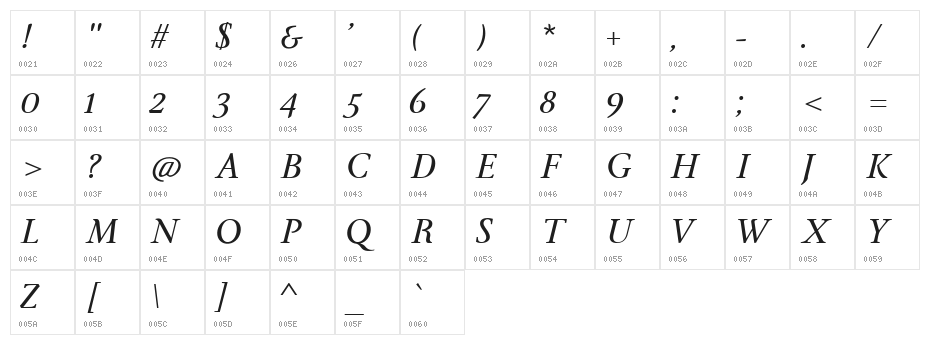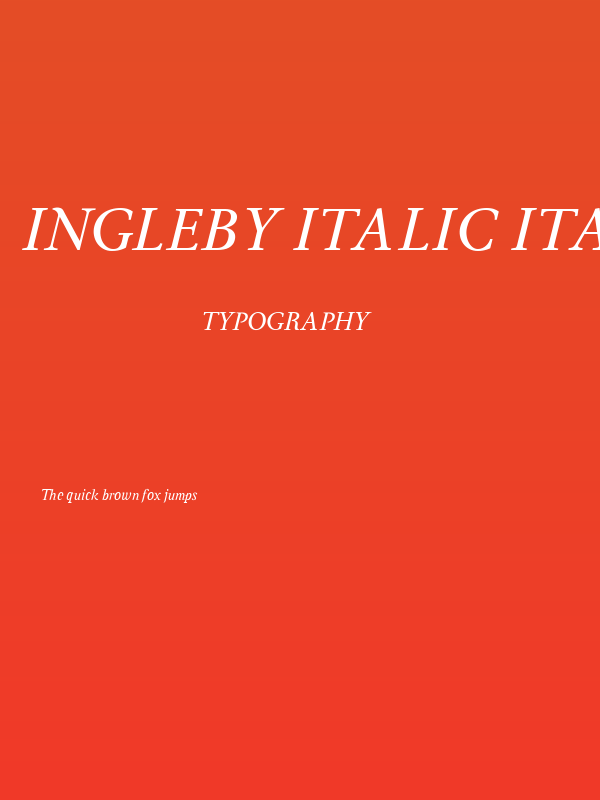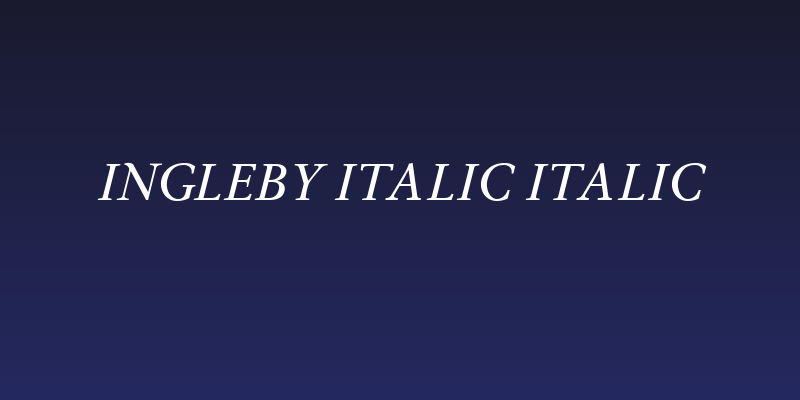
Ingleby Italic Italic Font
Ingleby Italic Italic Description
This font exudes a classic elegance with its italicized serif style, offering a sophisticated and refined appearance. The characters are gracefully slanted, providing a sense of motion and fluidity. The serifs are delicately crafted, adding a touch of tradition and formality. The uppercase letters are stately and well-proportioned, while the lowercase letters maintain a harmonious balance with their slightly rounded forms. The numerals are clear and distinct, ensuring readability. Special characters are thoughtfully designed to complement the overall aesthetic, making this font versatile for various applications.
| Proposed Projects | Ideal for wedding invitations, formal event programs, elegant branding, and editorial design. |